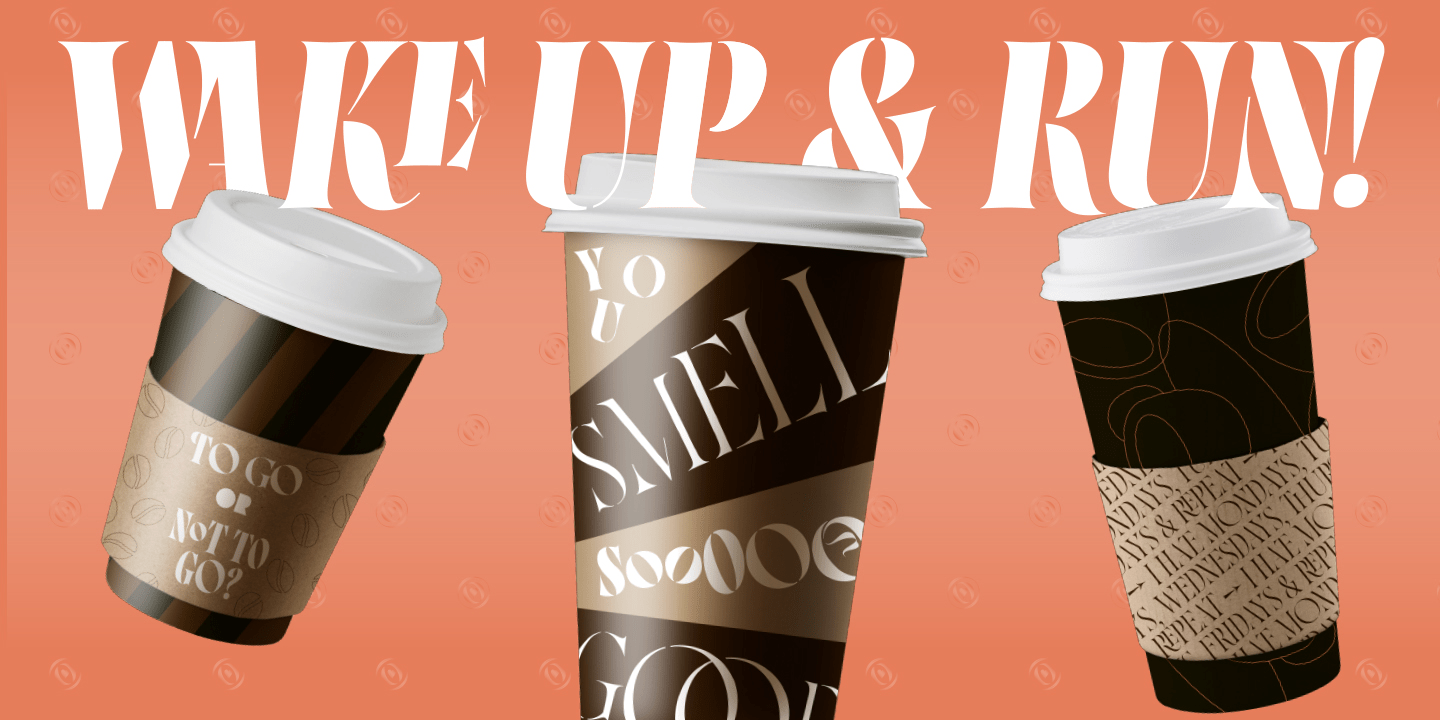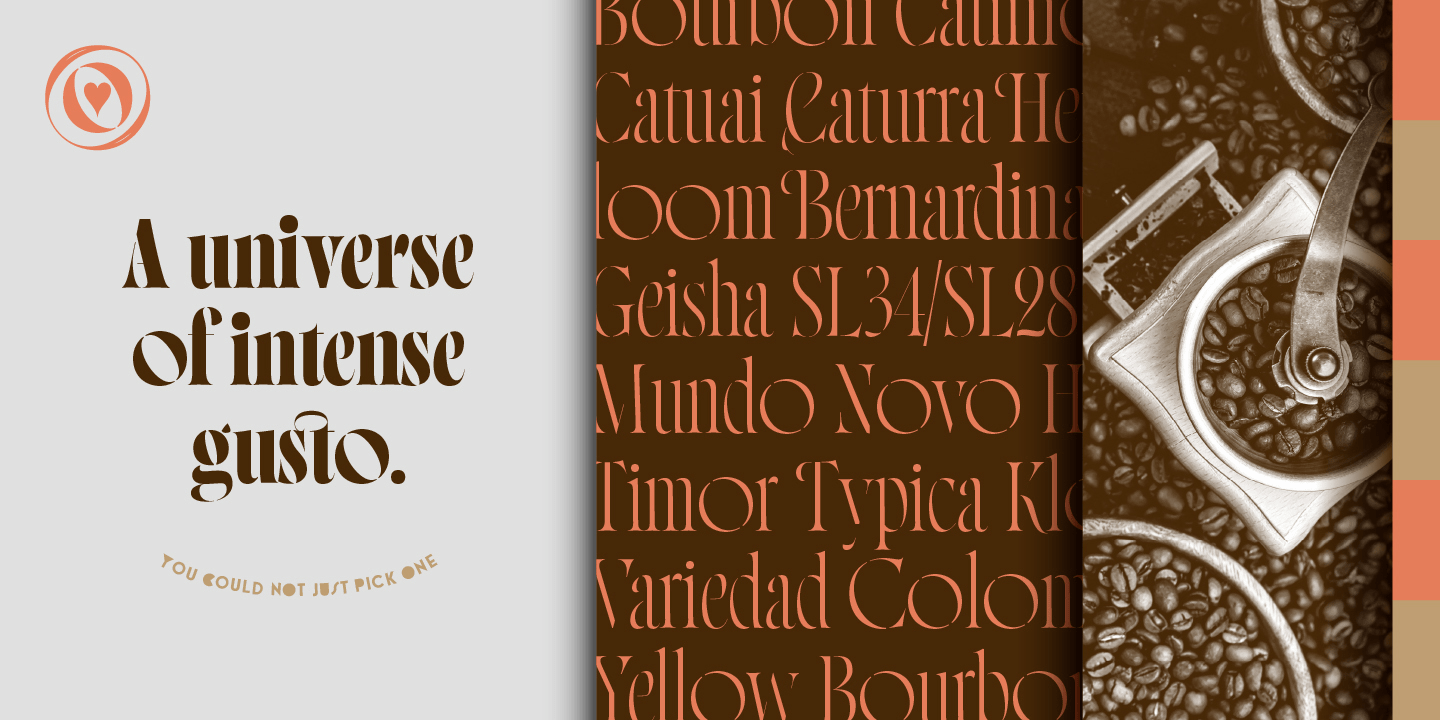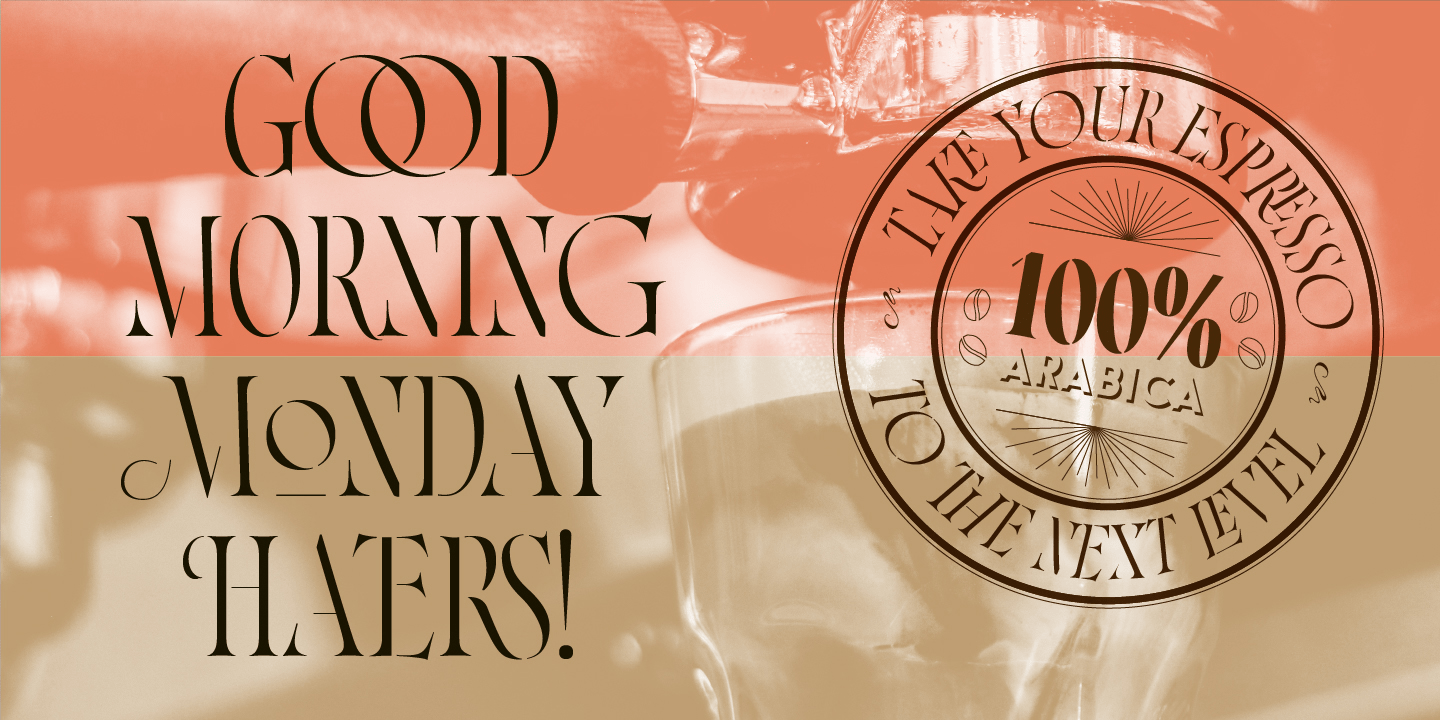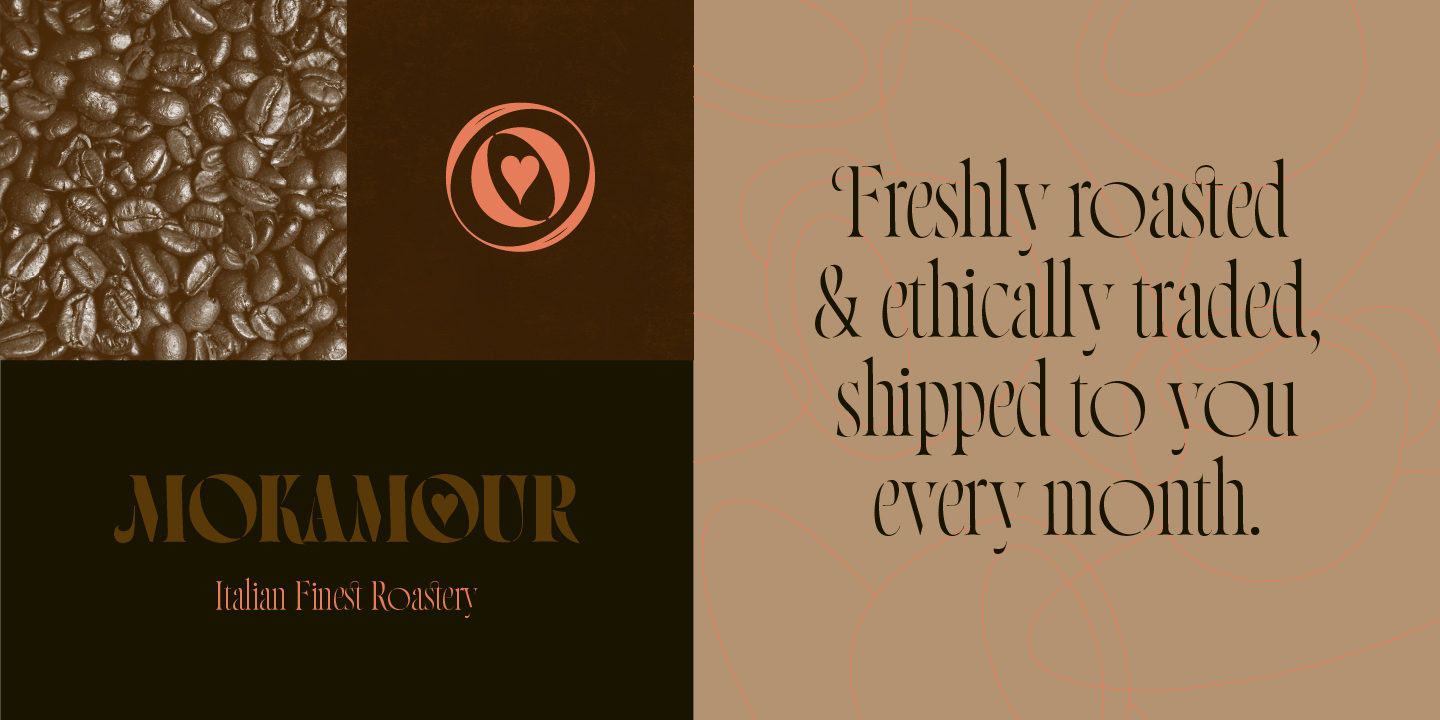
About Norman Stencil
Norman Stencil, is a new Norman. An high contrast, serif and narrow font. 2 styles and 2 weights. Norman Stencil it works perfectly on big texts, logos, headline and others display purposes. Activate your opentype features and you will enjoy all the…